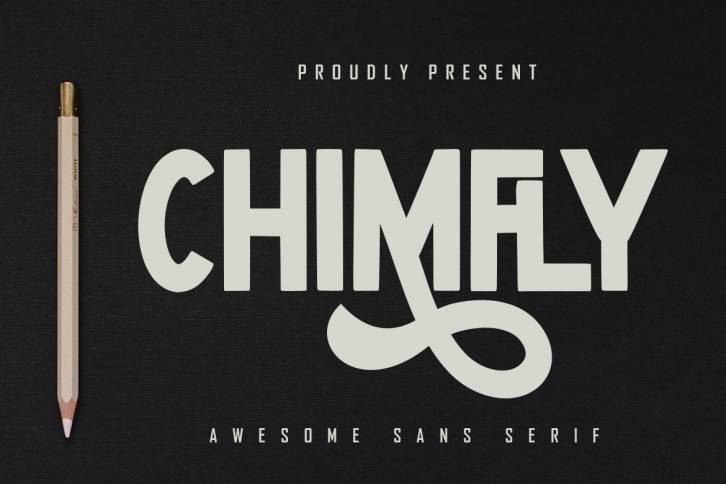
Chimfly is a gorgeous font that was realeased on April 20, 2021. The font can be used in many style contexts and design environments. Perfect for invitations, magazines, websites, logos, and more! It was designed by SkiillerStudio and the file size is 21.83 MB. Thanks for checking out this font!